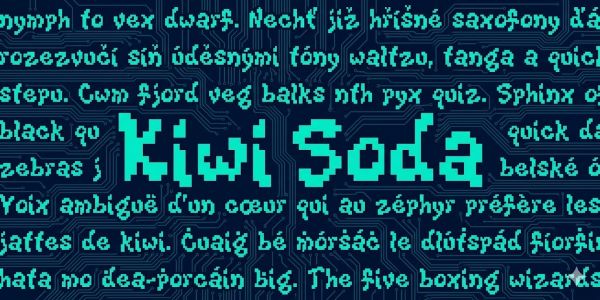
Kiwi Soda Font
Kiwi Soda is a free small letter font by jeti, inspired by the bouncy, exuberant energy of the Fruitopia logo — its bubbly, graffiti-adjacent letterforms radiating a funky, retro-hippy vibe that feels simultaneously nostalgic and full of life. Every character is designed with a loose, kooky personality that makes the typeface instantly recognizable and hard to ignore.